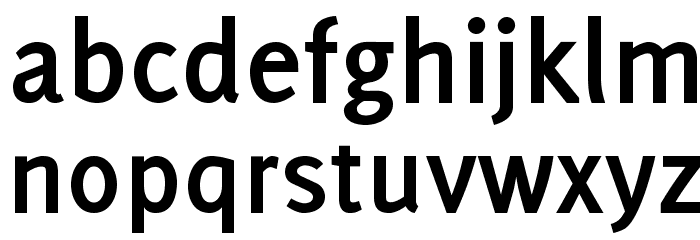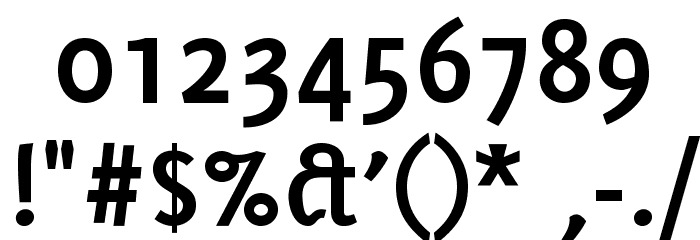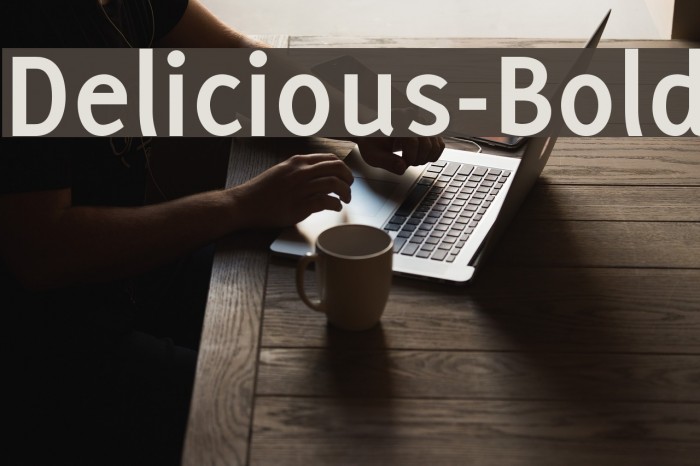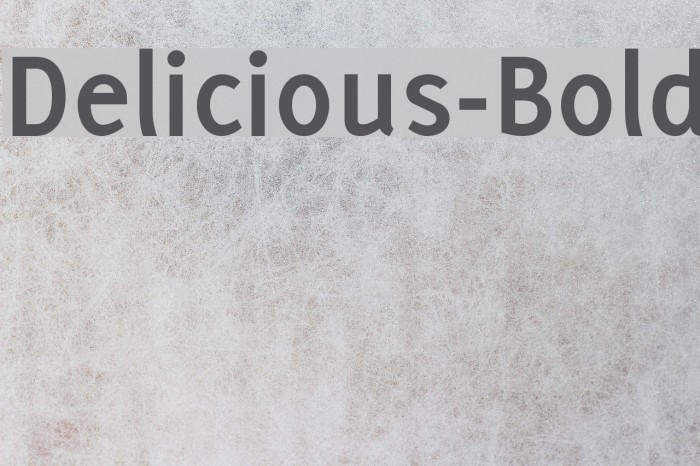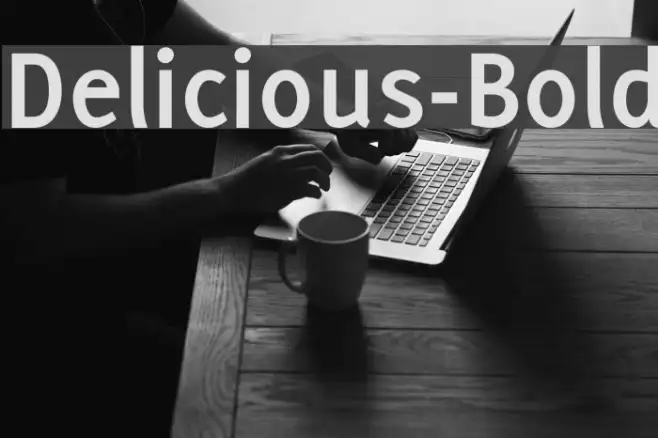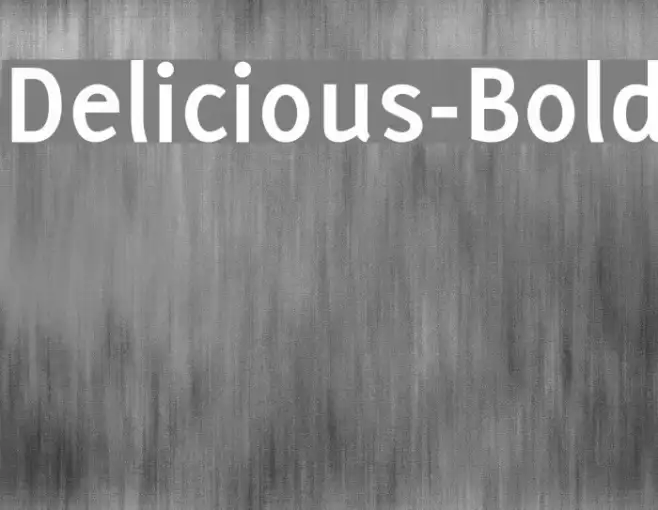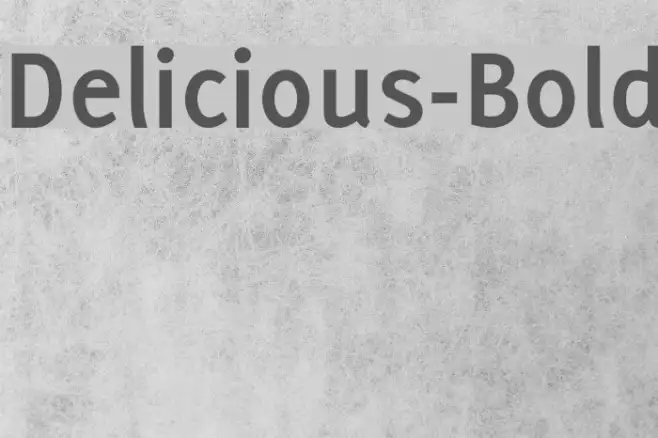
Delicious-Bold Font
This font features a bold and modern sans-serif style with clean lines and a strong presence. The characters are well-defined with a slight curvature that adds a touch of elegance. The uppercase letters are tall and commanding, while the lowercase letters maintain a consistent height, offering a harmonious balance. The numerals are clear and easy to read, making them suitable for various applications. Special characters are distinct and integrate seamlessly with the overall design, enhancing its versatility.
A bold, modern sans-serif font with clean lines and a strong presence.
- Proposed Projects: Ideal for branding, advertising, headlines, and digital media where a strong and modern impression is desired.
- Use Case: Headlines, Logos, Branding